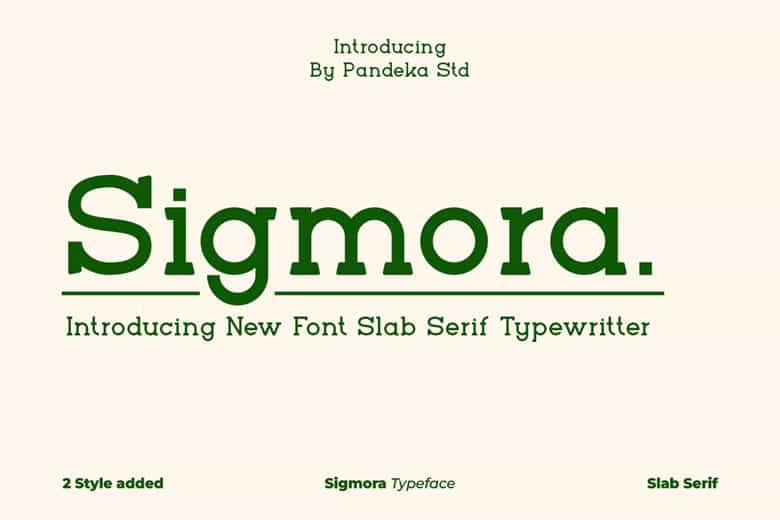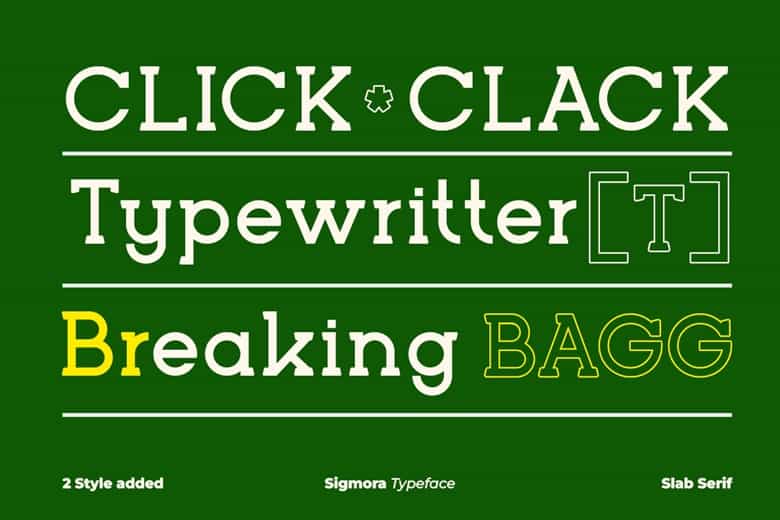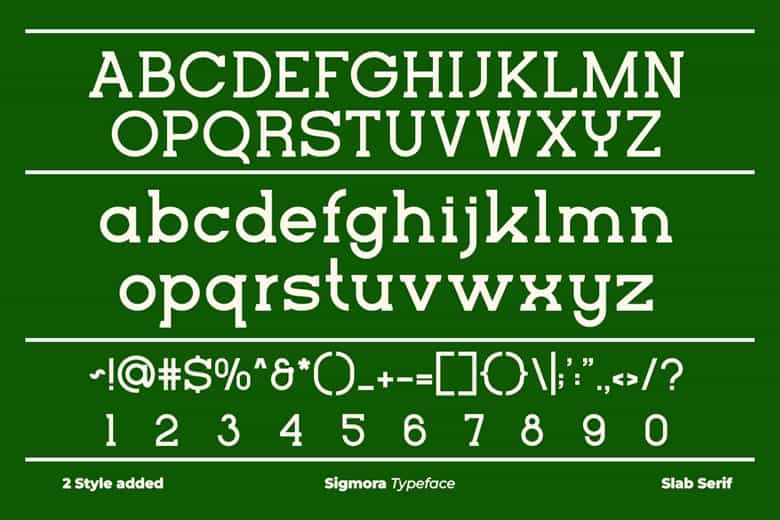
Sigmora is a very cute typewriter style slab serif typeface that has that old fashioned feel with a bit of a contemporary twist. Sigmora can be used for projects that require a strong yet welcoming look and feel, and is perfect for branding, posters, book covers, logos and much more!